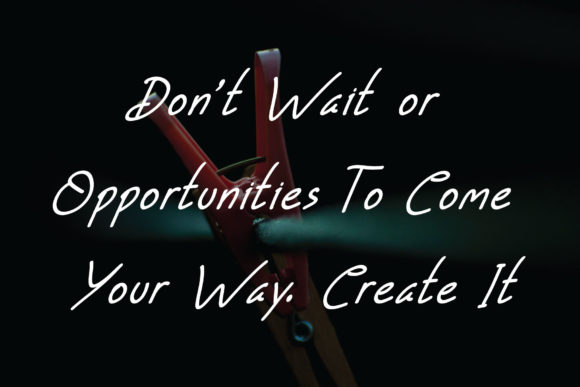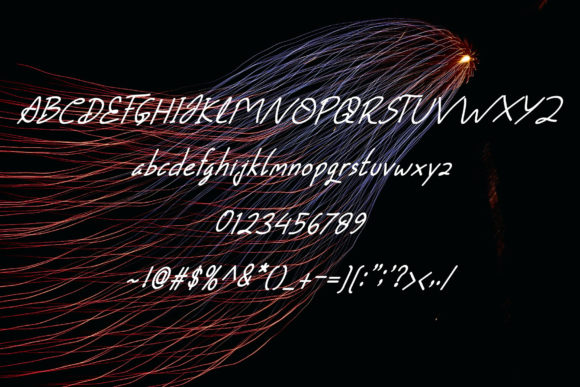
About The Future is Better Font
The Future is Better is a simple and neat handwritten font. Not too thin and not too thick, balanced and varied, this font was designed to enhance the beauty of your projects.